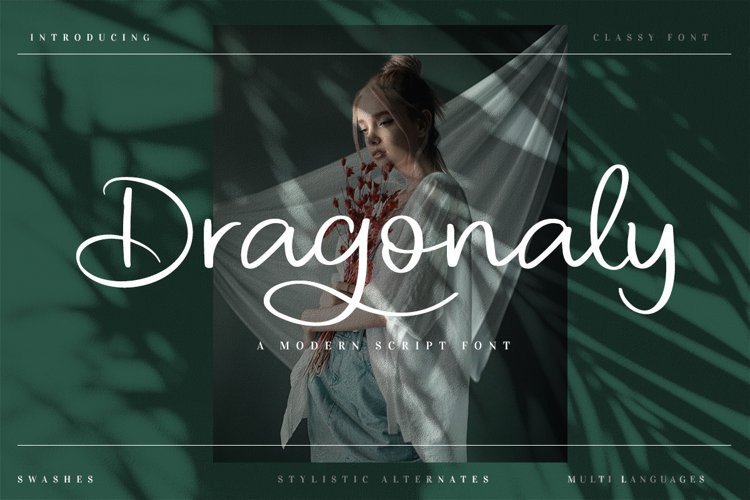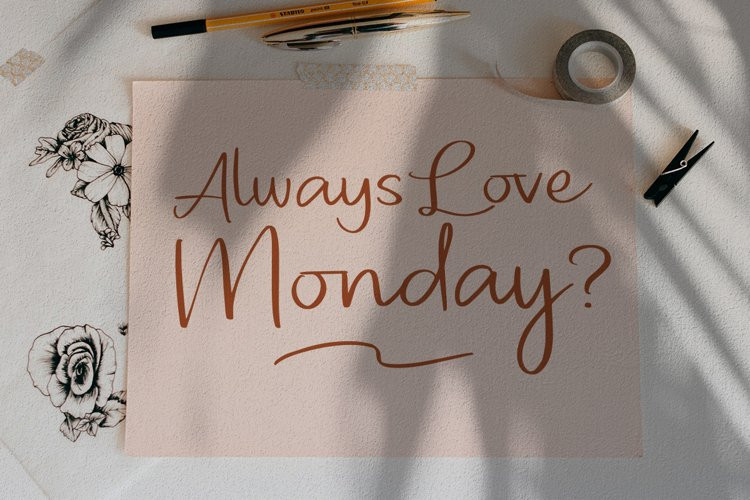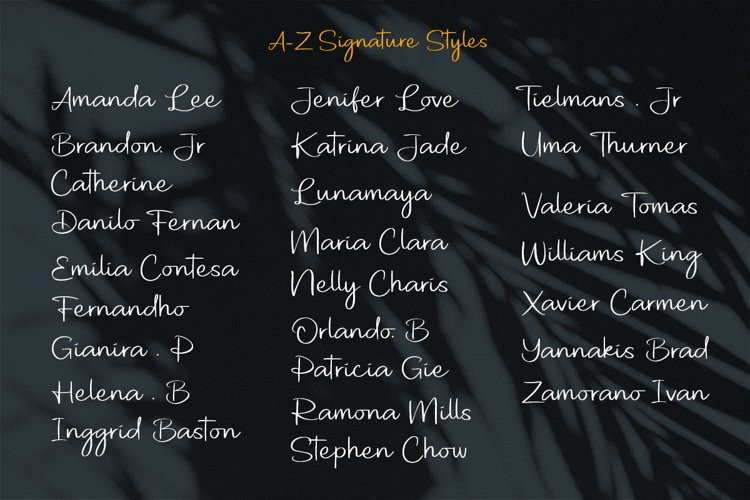
Dragonaly Font
Dragonaly FontDragonaly is a modern handwritten script, every single character has been carefully designed to make your type design looks more authentic like a natural signature style. Dragonaly has a beautiful beginning & ending and swashes added with additional bottom in your own design. This font is perfect for any purpose, such as logo design, name cards, branding design, packaging design, posters, brochures, fashion design, label, prints ads, wedding design, wedding invitations, watermarks, and more!